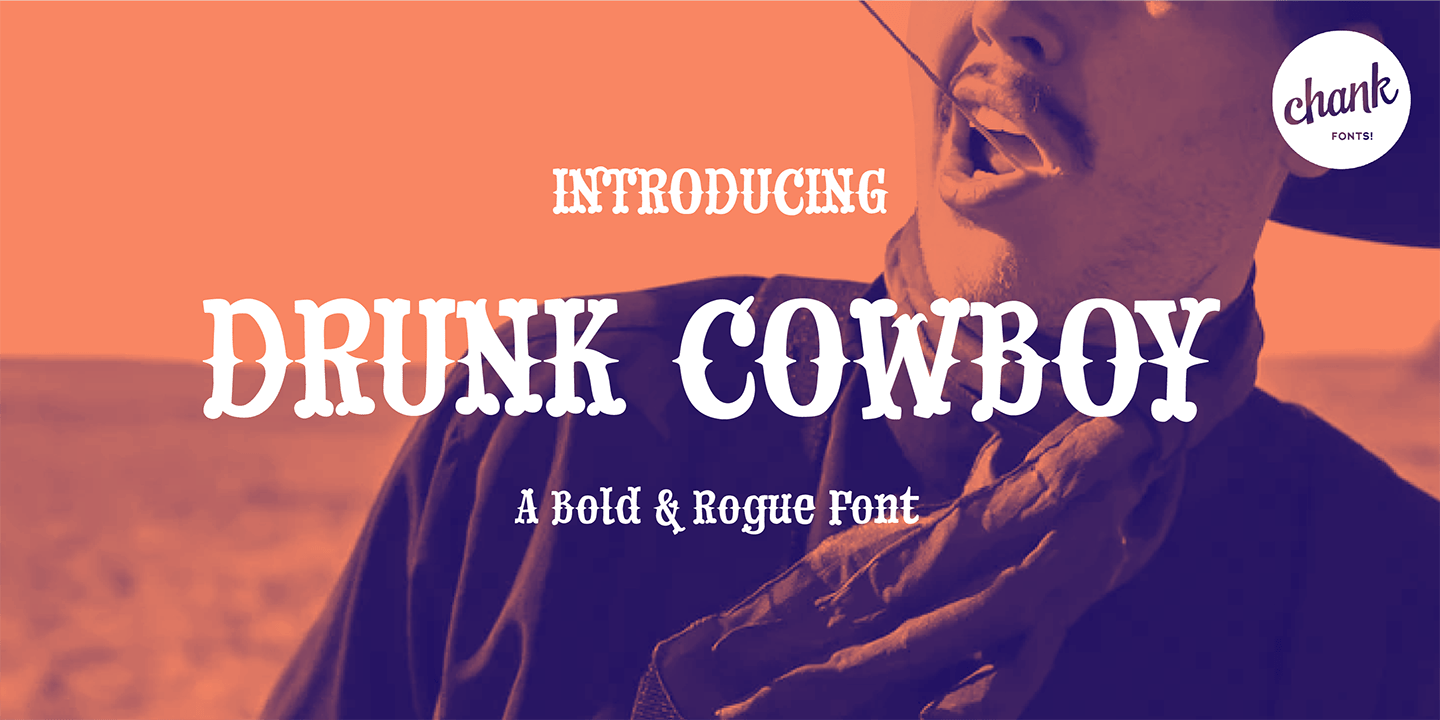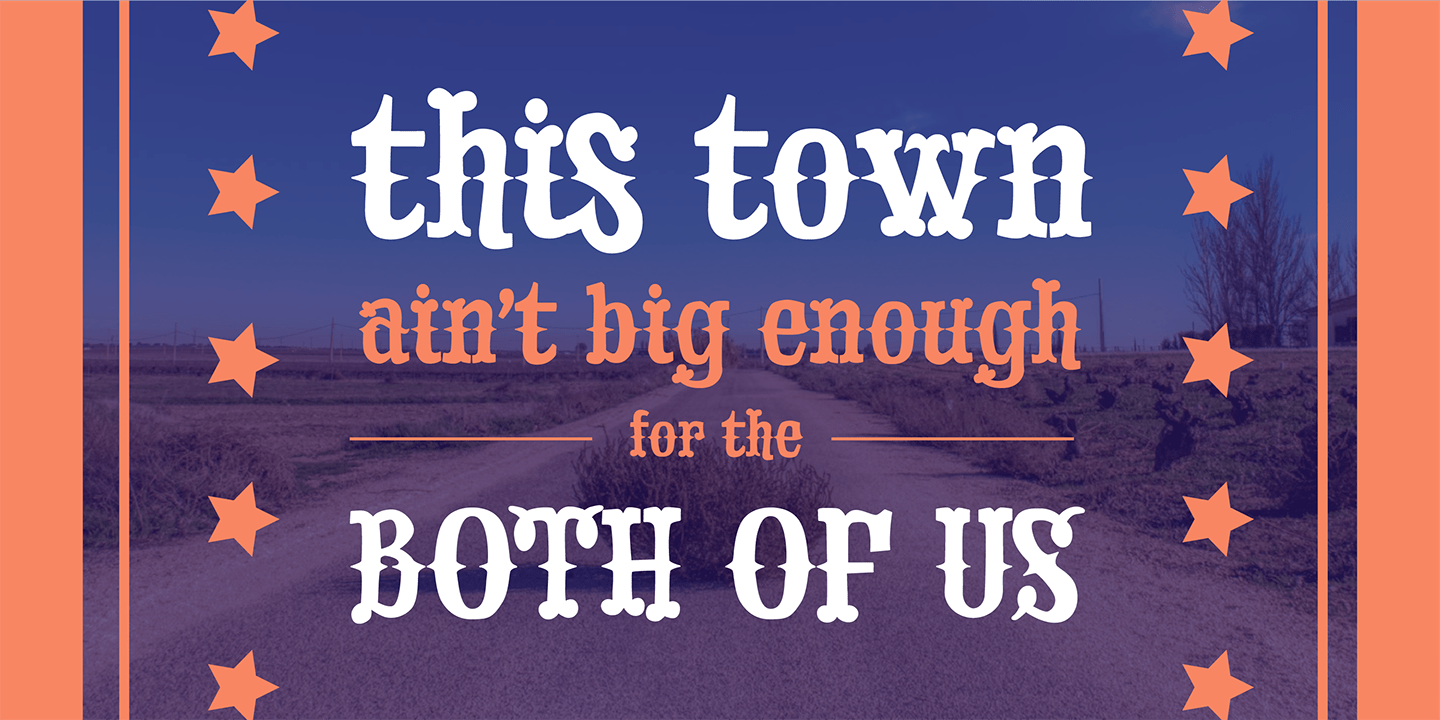
Drunk Cowboy
Font Family by Chank Co
Drunk Cowboy is a bouncy version of the popular Old West type style, inspired by hand-made signage in Paducah, Kentucky. The strokes are loopy and loose. The exaggerated terminals give this font a loud, boisterous presence. Drunk Cowboy is a brutish rogue that eminates the fierce independence of Rio as played by Marlon Brando in "One Eyed Jacks," but it is most like Paul Newman's Butch Cassidy -- a mischievous wise-cracker.